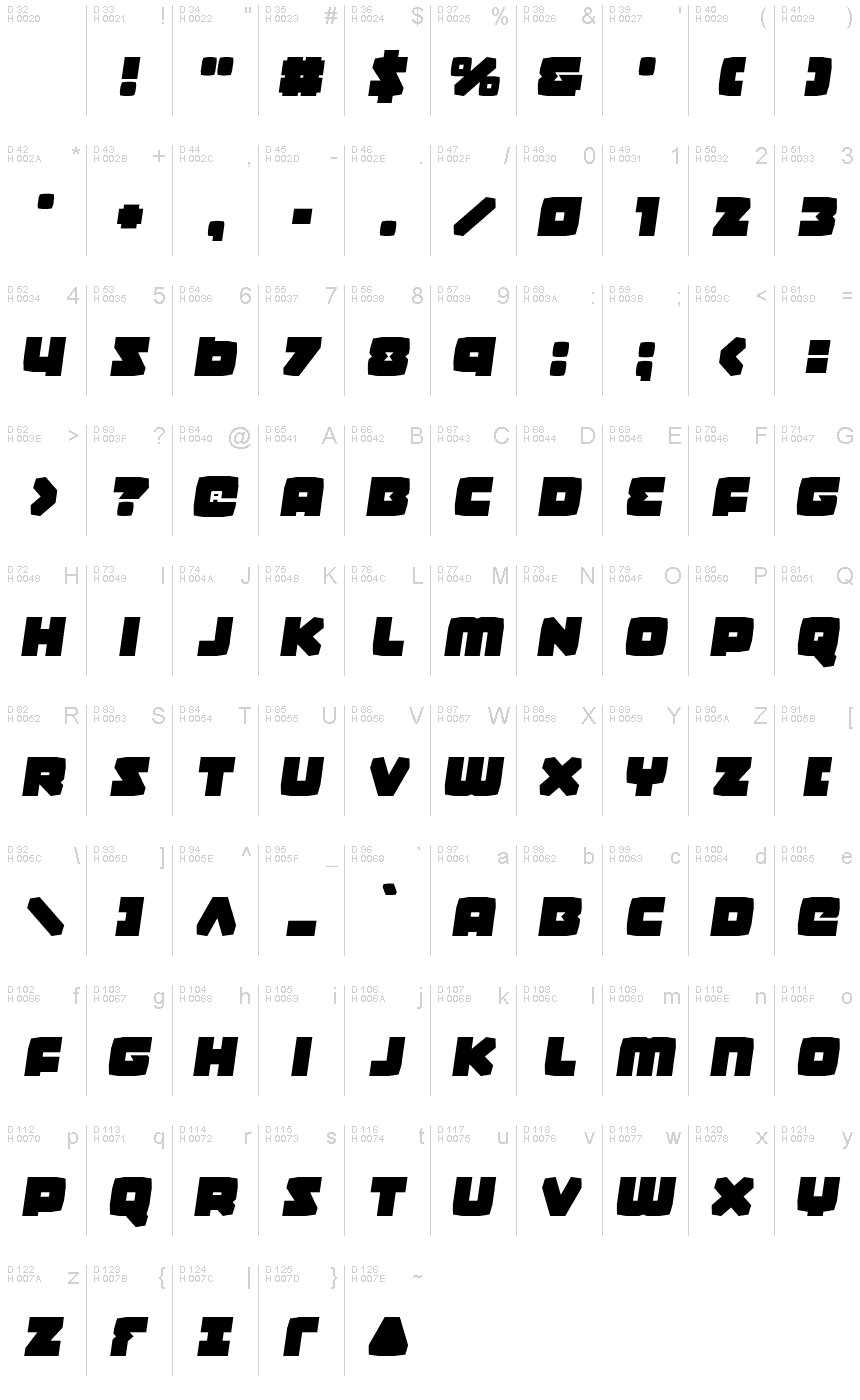
Gamer Spot Semi-Italic
Gamer Spot Semi-Italic is an ultra-bold, extra-expanded display font by Iconian Fonts. With a distinct techno style, this font will elevate your designs for gaming and technology-related projects. Its unique semi-italic design is perfect for adding emphasis and creating a futuristic vibe. Use Gamer Spot Semi-Italic for branding, title design, posters, and more. This font's boldness and expansion make it suitable for larger displays such as billboards or event banners, grabbing attention with its striking appearance. Bring an edge to your designs with Gamer Spot Semi-Italic - the ultimate choice for any gaming or tech project!